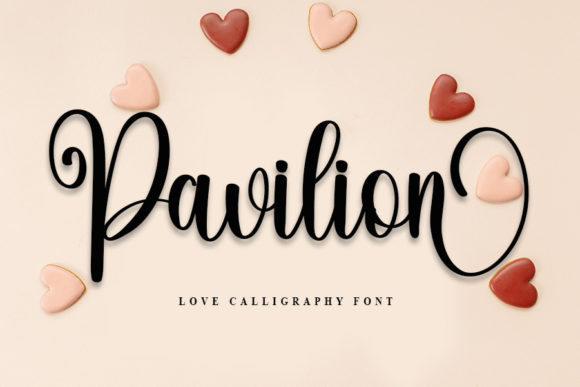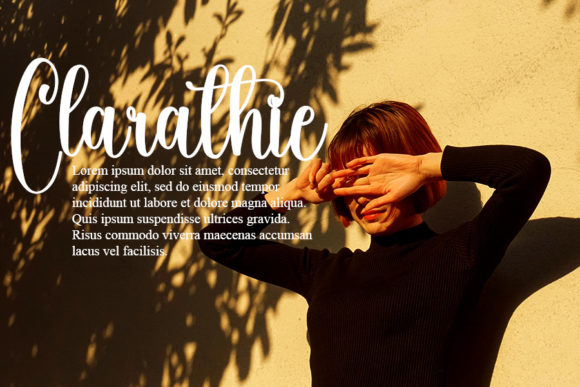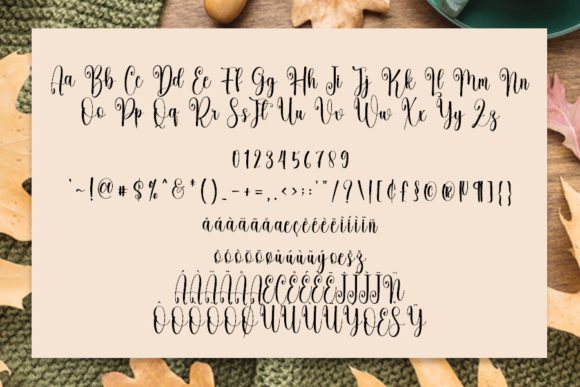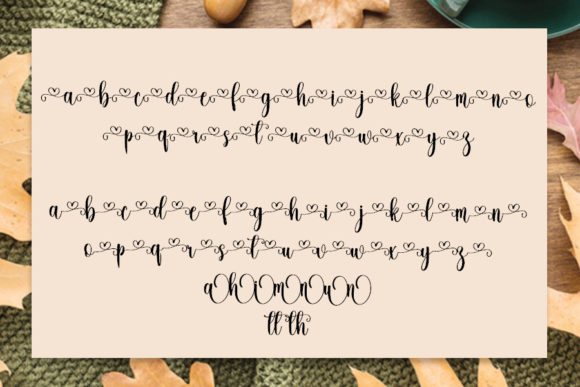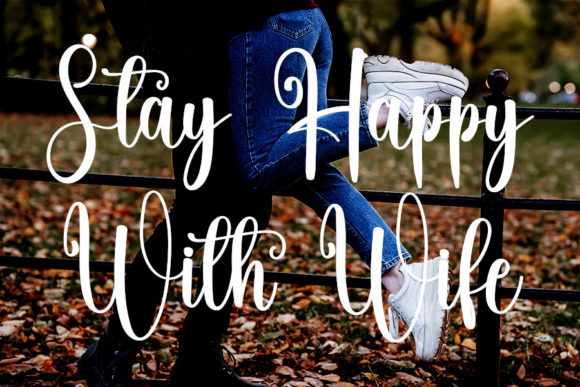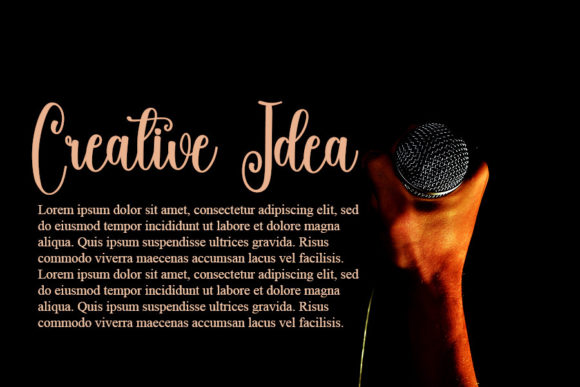
Pavilion Font
About Pavilion Font
Pavilion is an enchanting handwritten font. It will add a luxury spark to any design project that you wish to create! This font is PUA encoded which means you can access all of the amazing glyphs and ligatures with ease!